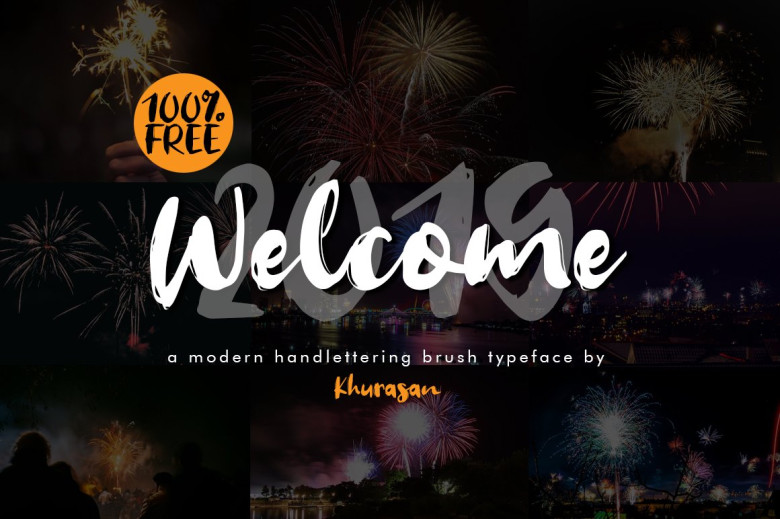
Welcome 2019 Brush Font
A new bold brush Typeface. The sheet will make your design project explode with character and charm, and will make your design project look realistic. Introducing Welcome 2019 Font. A professional modern handlettering brush font. Use it for ads, logos, branding or anything that that you’ll need. This is free for commercial use so feel free to use it to prosper!